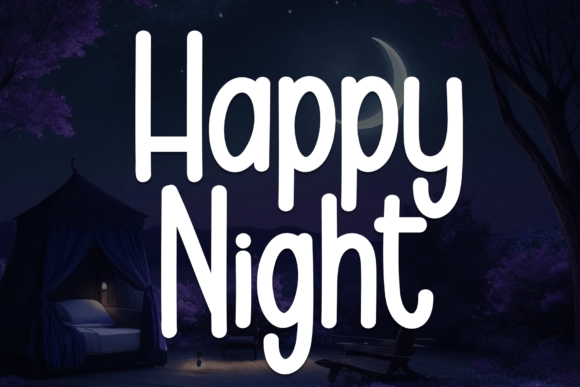
Introducing Happy Night Font: The Sweet and Friendly Handwritten Font for Your Creative Projects
Are you looking for a font that can add a touch of sweetness and friendliness to your designs? Look no further than Happy Night Font! This beautiful handwritten font is perfect for creating wedding invitations, cards, and other designs that require a fun and playful touch. In this article, we’ll take a closer look at Happy Night Font, its features, and how you can use it to elevate your creative projects.
What is Happy Night Font?
Happy Night Font is a sweet and friendly handwritten font that is designed to bring a smile to your face. Its cute and fun design makes it ideal for a variety of creative projects, from wedding invitations and cards to social media graphics and more. This font is perfect for anyone who wants to add a personal touch to their designs and make them stand out from the crowd.
Key Features of Happy Night Font
- Handwritten design: Happy Night Font has a beautiful handwritten design that gives it a personal and unique touch.
- Cute and fun: This font is designed to be cute and fun, making it perfect for designs that require a playful touch.
- Sweet and friendly: Happy Night Font has a sweet and friendly vibe that makes it ideal for wedding invitations, cards, and other designs that require a personal touch.
- Easily readable: This font is designed to be easily readable, making it perfect for body text and headings.
- Multilingual support: Happy Night Font supports multiple languages, making it a great choice for designers who work with clients from different parts of the world.
Use Cases for Happy Night Font
Happy Night Font is a versatile font that can be used for a variety of creative projects. Here are some use cases where this font can shine:
- Wedding invitations: Happy Night Font is perfect for wedding invitations, as it adds a touch of sweetness and romance to the design.
- Cards: This font is great for creating cards for special occasions, such as birthdays, anniversaries, and holidays.
- Social media graphics: Happy Night Font can be used to create social media graphics that require a fun and playful touch.
- Logos: This font can be used to create logos for businesses that require a friendly and approachable design.
- Packaging design: Happy Night Font can be used for packaging design, especially for products that require a personal touch.
Tips for Using Happy Night Font
Here are some tips for using Happy Night Font in your designs:
- Pair it with a bold font: Happy Night Font can be paired with a bold font to create a beautiful contrast.
- Use it for headings: This font is perfect for headings, as it adds a touch of personality to the design.
- Experiment with colors: Happy Night Font can be used with a variety of colors to create a unique design.
- Use it for body text: This font is easily readable, making it perfect for body text.
In conclusion, Happy Night Font is a sweet and friendly handwritten font that is perfect for adding a touch of personality to your designs. Its cute and fun design makes it ideal for wedding invitations, cards, and other designs that require a playful touch. With its easily readable design and multilingual support, Happy Night Font is a great choice for designers who want to create beautiful and unique designs.
- What is Happy Night Font?: Happy Night Font is a sweet and friendly handwritten font.